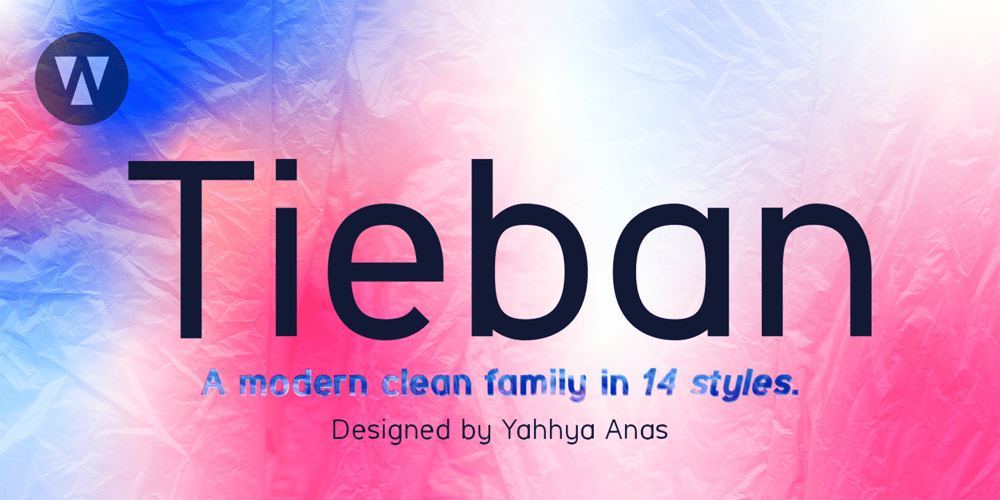
Tieban Font Family was designed by Yahhya Anas Atok Illah and published by WNGSTD. Tieban contains 14 styles and family package options. Tieban font family is composed of 14 styles that perfectly complement each other. You can use them to create a logo or use for your business, branding, t-shirts, book covers, stationery, marketing, blogs, magazines, and more.Language support29 languages: Afrikaans, Albanian, Basque, Belarusian, Danish, Dutch, English, Estonian, Faroese, Filipino, Finnish, French, Galician, German, Icelandic, Indonesian, Irish, Italian, Macedonian, Malay, Mongolian, Norwegian Bokmål, Portuguese, Russian, Serbian, Spanish, Swahili, Swedish, Zulu